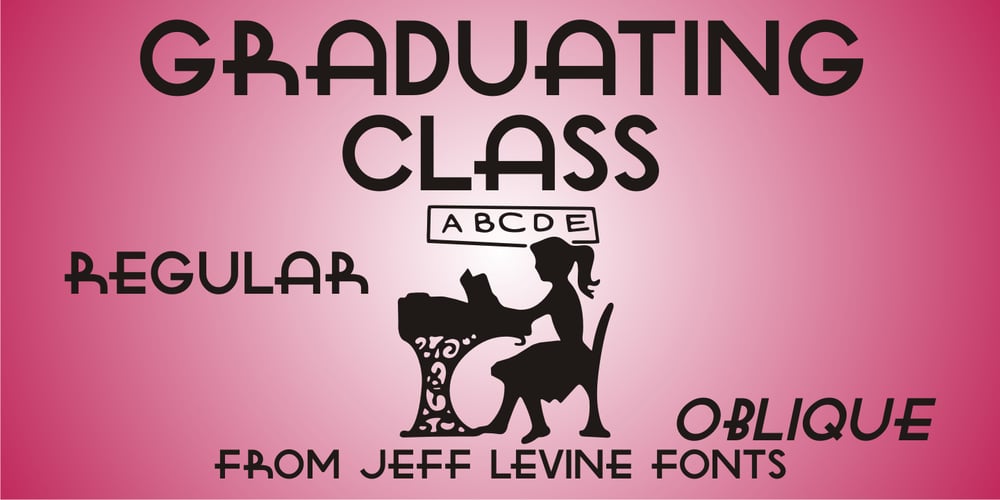
Graduating Class JNL Font Family was designed by Jeff Levine and published by Jeff Levine. Graduating Class JNL contains 2 styles and family package options. Graduating Class JNL was inspired by the hand lettered titles found on a 1934 high school yearbook from Richmond Hill, NY called “The Senior Dome”. This Art Deco era type design is available in both regular and oblique versions.